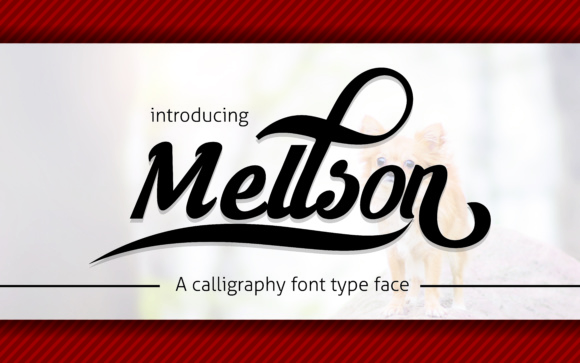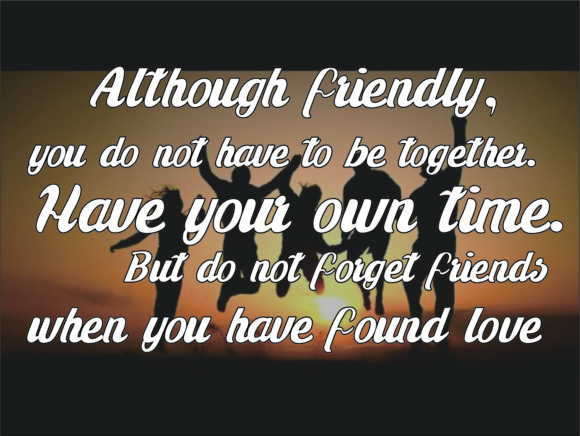
Mellson Font by Urban Store is fresh and modern script font with a painterly vibe, crafted to give headlines and displays a vintage appeal and is offered free for a limited time (just 5 days!)
This font comes with stylistic alternates, swashes, and contextual alternates so you can create truly impactful and stylish designs.